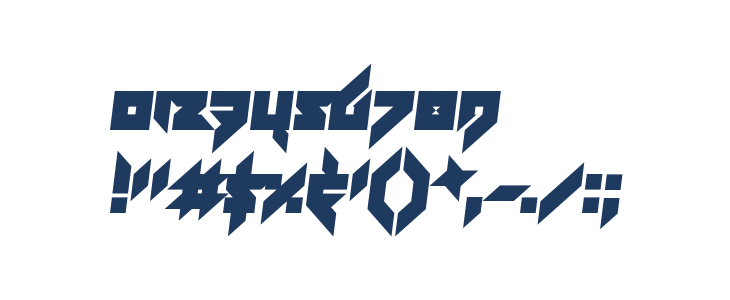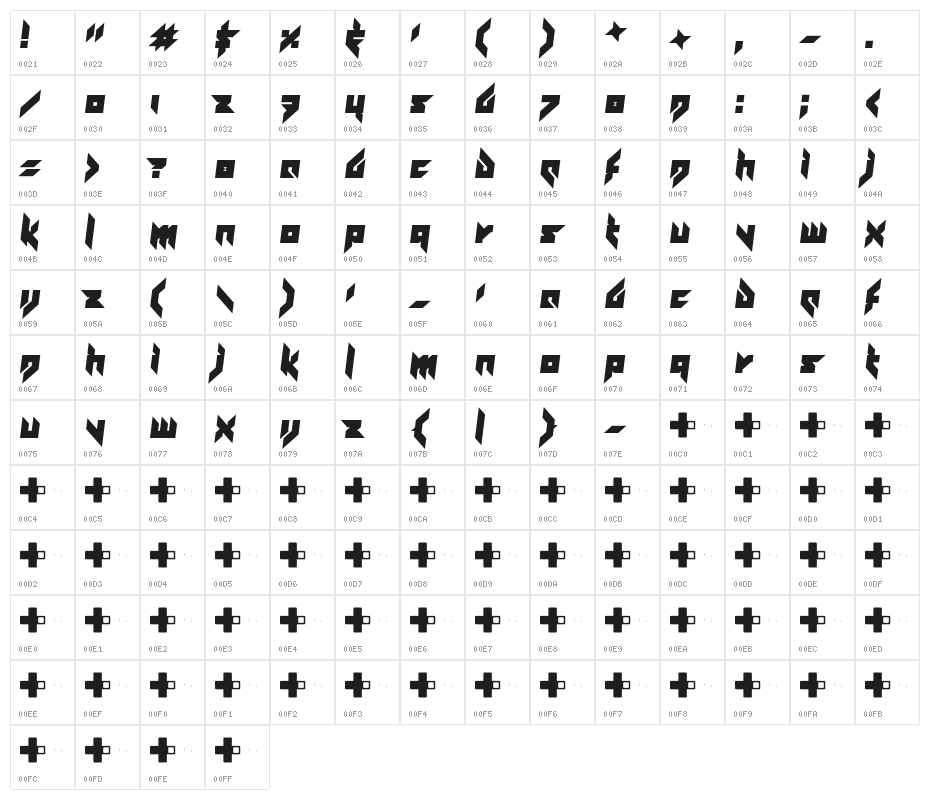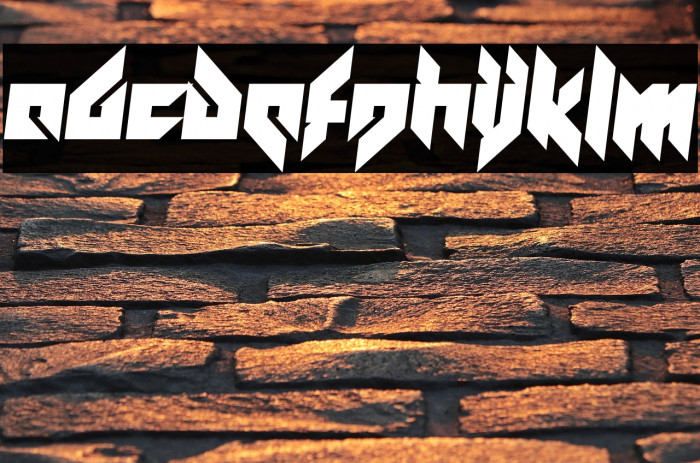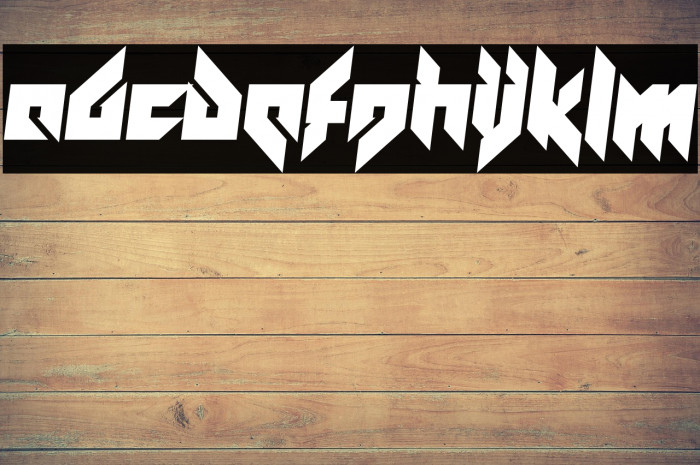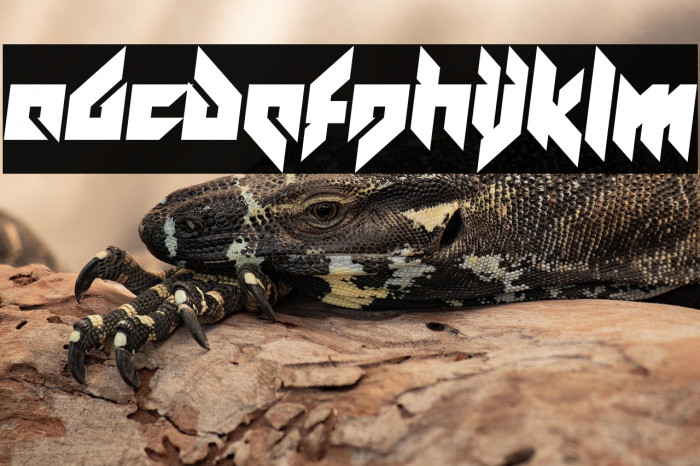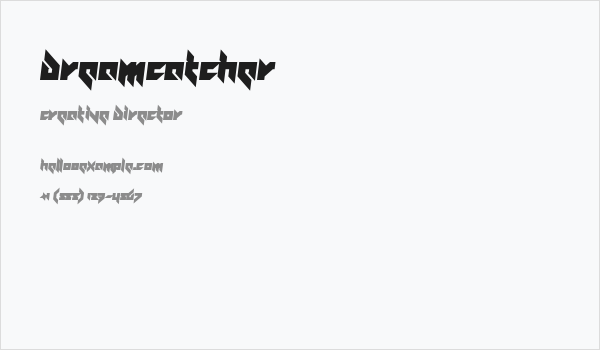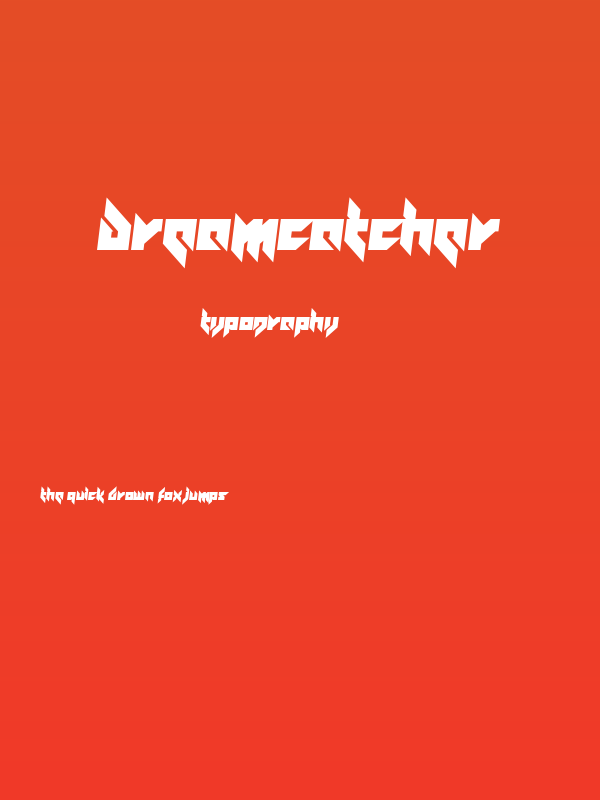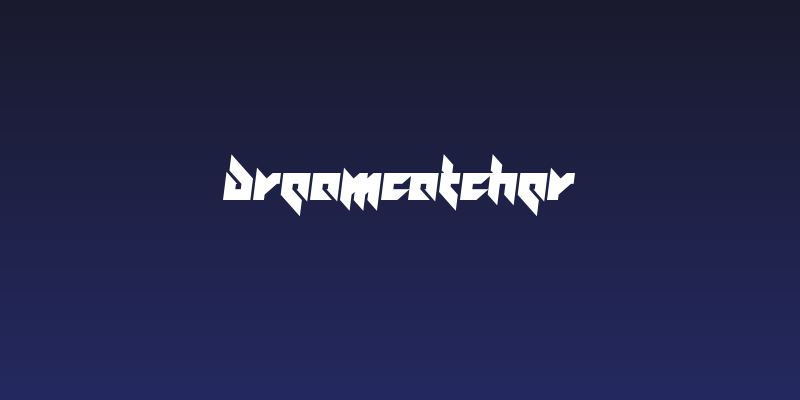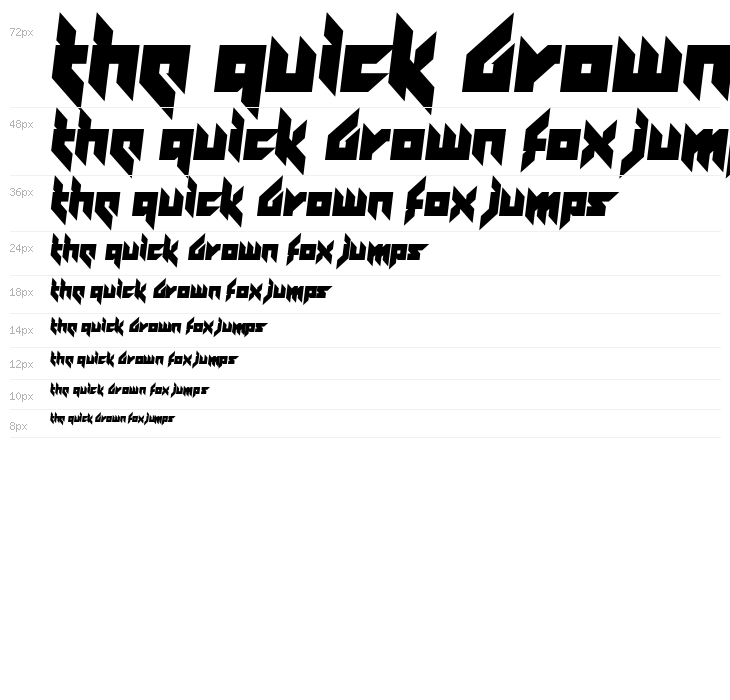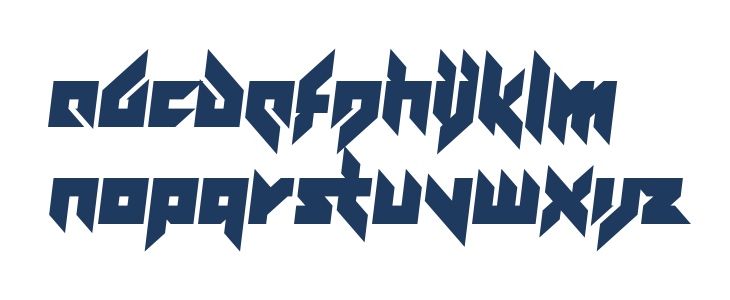
Dreamcatcher Font
Dreamcatcher Description
This font features a bold, angular design with sharp edges and geometric shapes, giving it a futuristic and aggressive appearance. The characters are highly stylized, with a consistent use of pointed angles and thick strokes that create a sense of movement and energy. The uppercase and lowercase letters maintain a uniform style, while the numbers and special characters complement the overall aesthetic with similar angular forms. This font is designed to stand out, making it ideal for projects that require a strong visual impact.
| Overall Style | Futuristic, Aggressive |
| Proposed Projects | Ideal for video game titles, sci-fi movie posters, branding for tech companies, and any project needing a strong, modern aesthetic. |